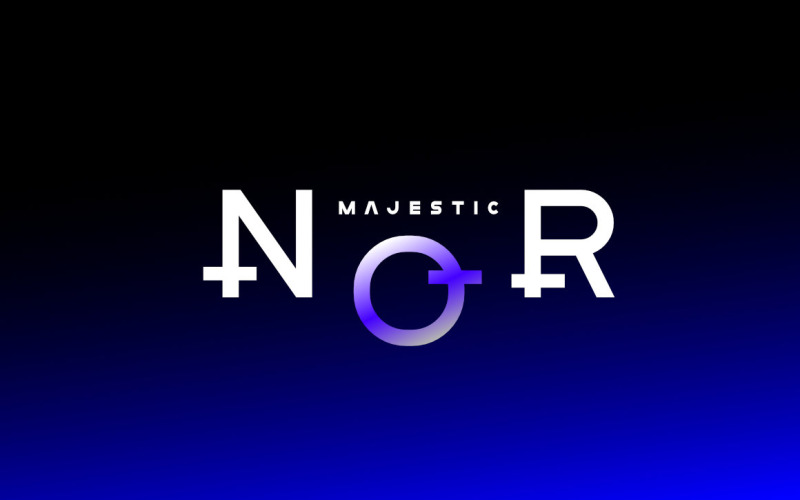
Getboreg Minus Tech - Glitch Font
a cutting-edge sans-serif font meticulously crafted for the tech-savvy generation. Immerse your designs in the seamless fusion of sleek minimalism and the captivating allure of glitch art.
Type of character
- Uppercase
- Lowercase
- Multilingual